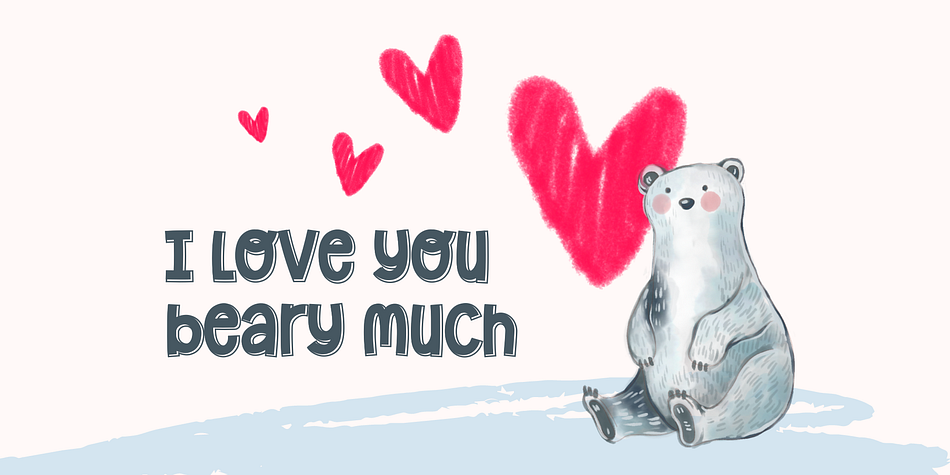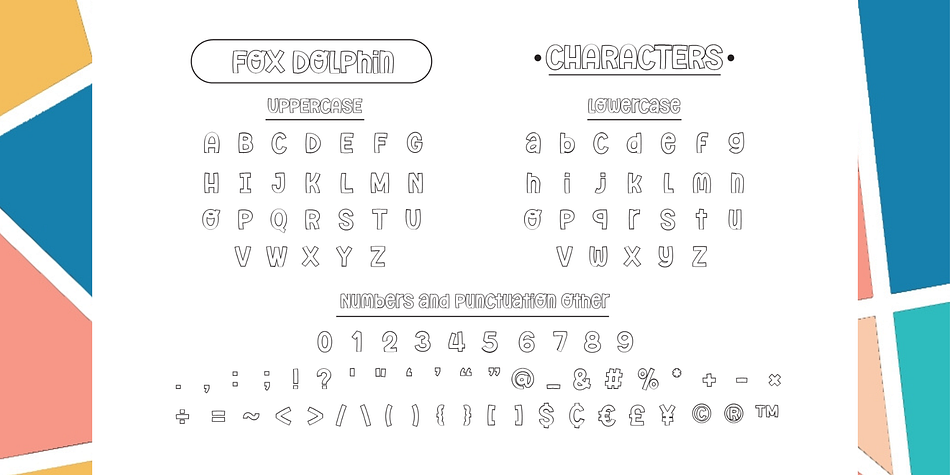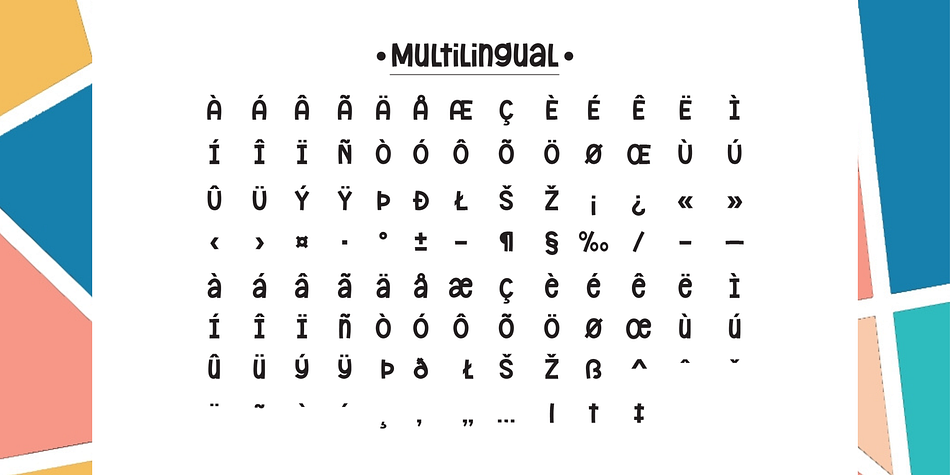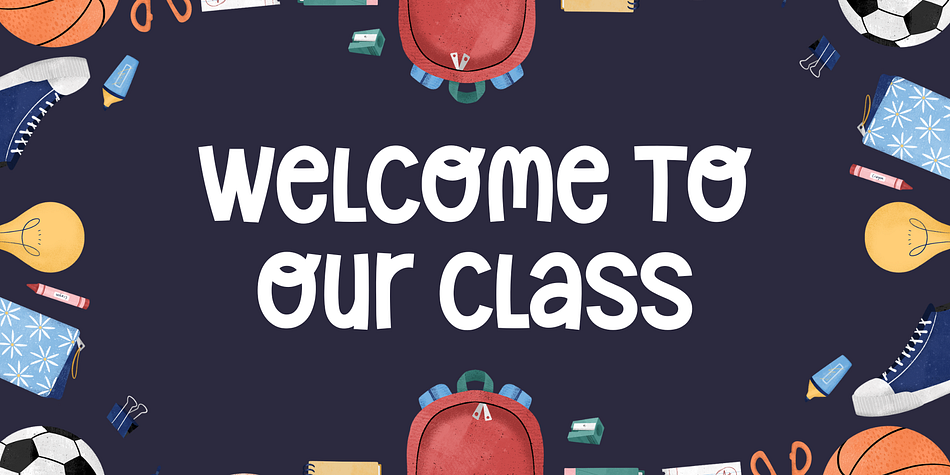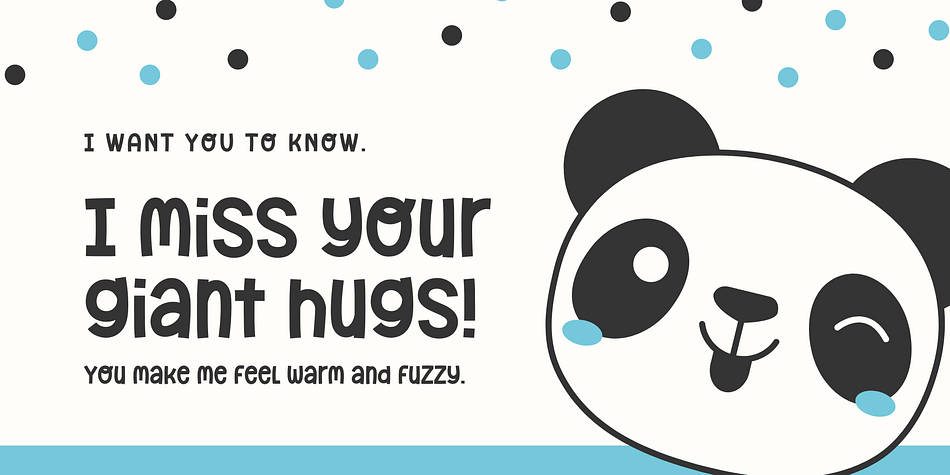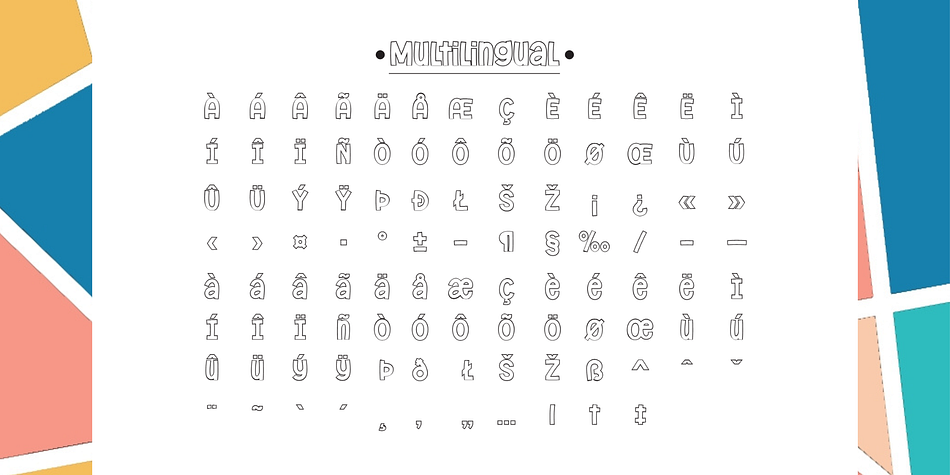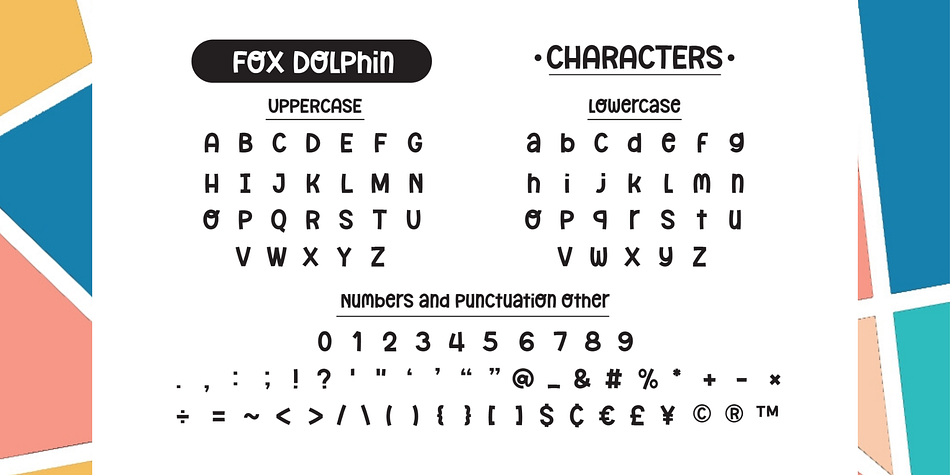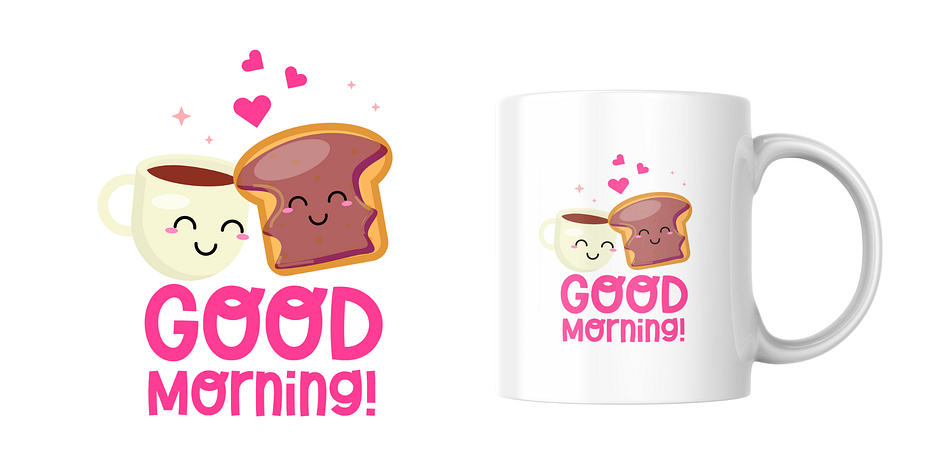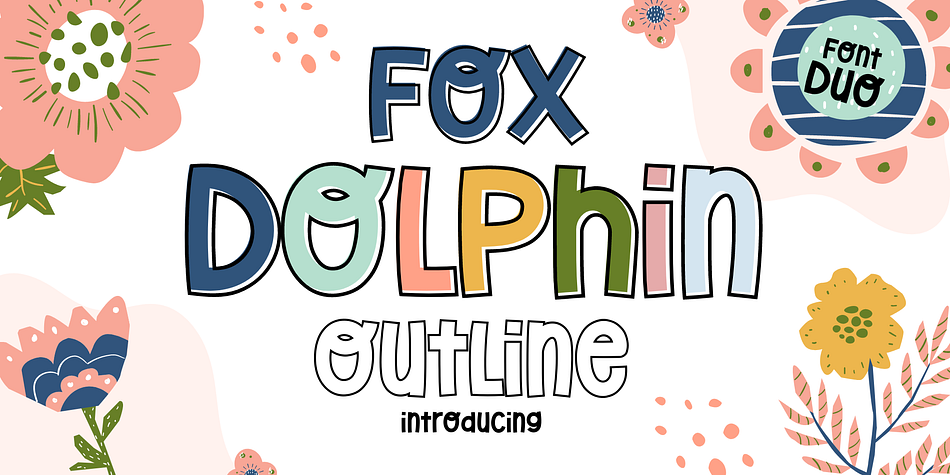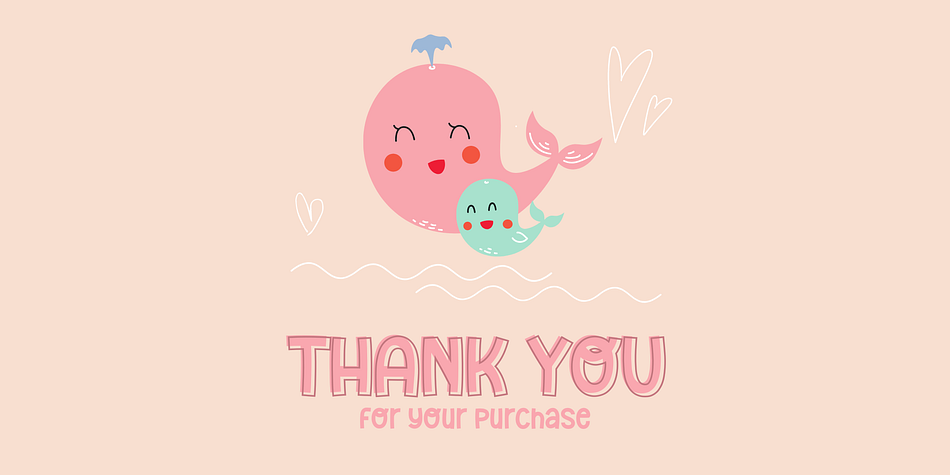
Fox Dolphin
Designed by Rattana Rattanawan, Fox Dolphin is a display font family. This typeface has two styles and was published by Fox7.
Fox Dolphin and Fox Dolphin Outline fonts are a cool cute and playful display font that adds a captivating and energetic touch to your designs. Perfect for use in publications, menus, logos, business cards, or even printed on t-shirts, these fonts exude uniqueness. Its main feature is its vibrant and expressive design, allowing you to create attention-grabbing headlines, t-shirt typography, banners, product labels, and more.